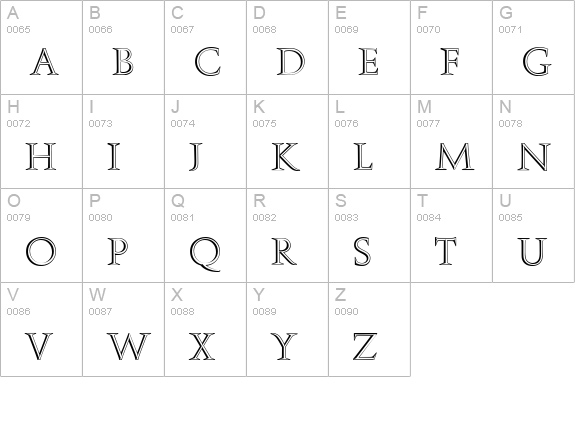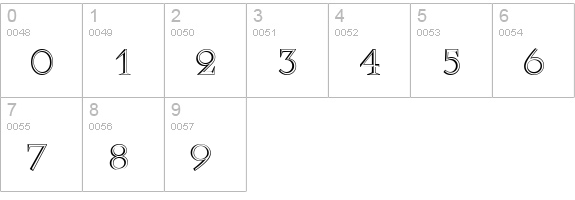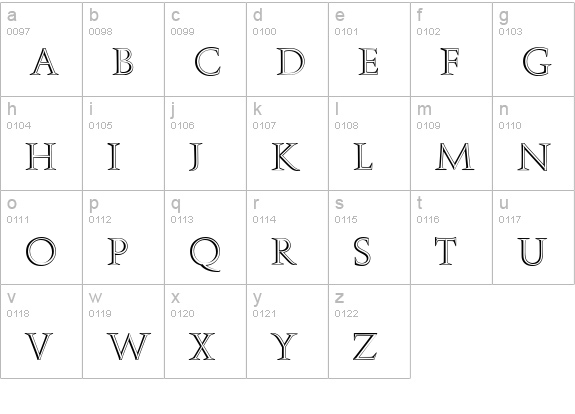
Openface-Regular is the standard, neutral variant in the Openface typeface family \xE2\x80\x94 well suited to general body text, paragraphs, and standard typographic work.
Openface-Regular is a classic and elegant font that brings a touch of sophistication to any design project. Its timeless appeal is perfect for a wide range of applications, from branding to invitations to editorial design. With its clean lines and distinctive serifs, Openface-Regular exudes a sense of professionalism and refinement. What sets Openface-Regular apart is that it is not only beautiful but also free to use. This means that you can enhance your projects with this stunning font without breaking the bank. You can easily download Openface-Regular for free at FontsMarket.com, where you'll find a wide selection of high-quality fonts to suit all your design needs. Whether you're working on a logo, a wedding invitation, or a magazine layout, Openface-Regular is sure to add a touch of elegance and sophistication to your design. Download it today and elevate your projects with this timeless and versatile font.